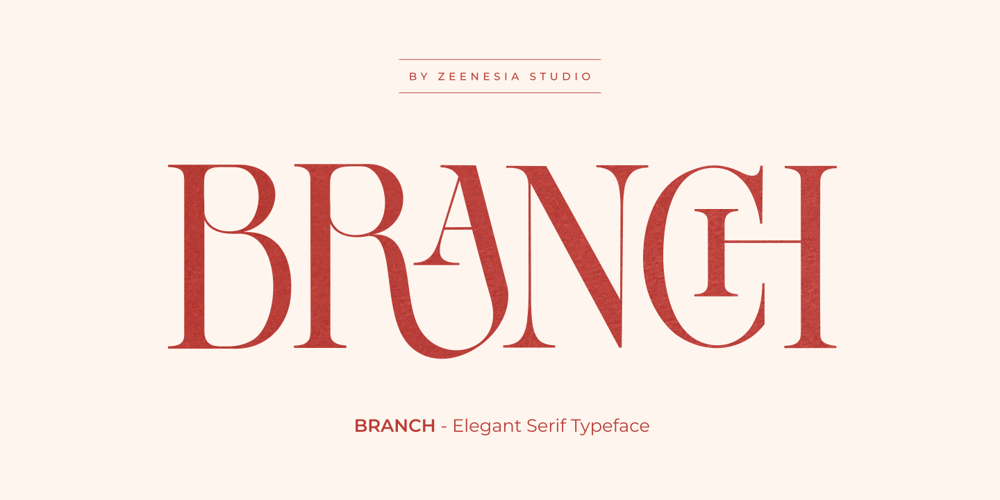
Zn Branch Font Family was designed by Zeenesia Studio and published by Zeenesia Studio. Zn Branch contains 1 styles and family package options. Introducing BRANCH – Elegant Serif TypefaceBRANCH is a beautiful and smooth serif font created by a romantic and lovely look. I created some natural ligatures to make this font very elegant and look so classy. It is perfect for greeting cards, wedding invitations, posters, logotypes, product branding, and much more.This font is PUA encoded, which means you can access all of the glyphs and swashes with ease!